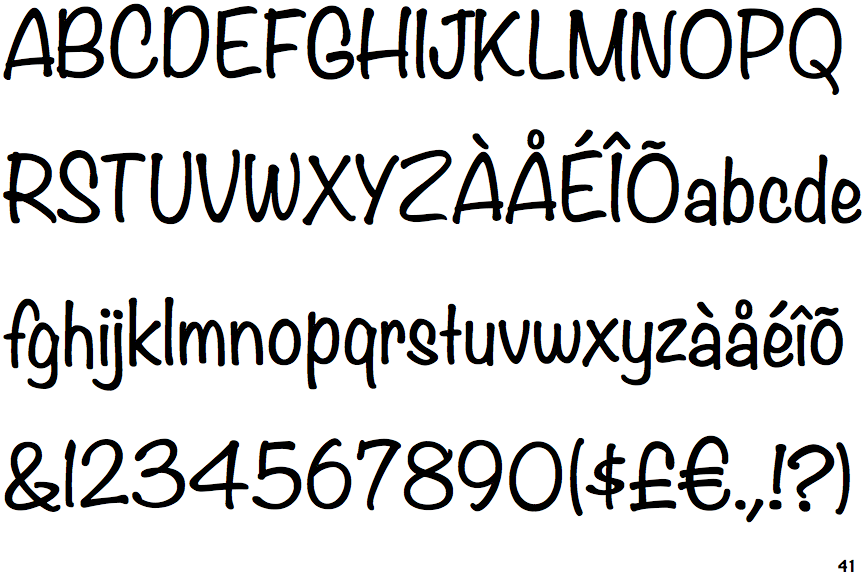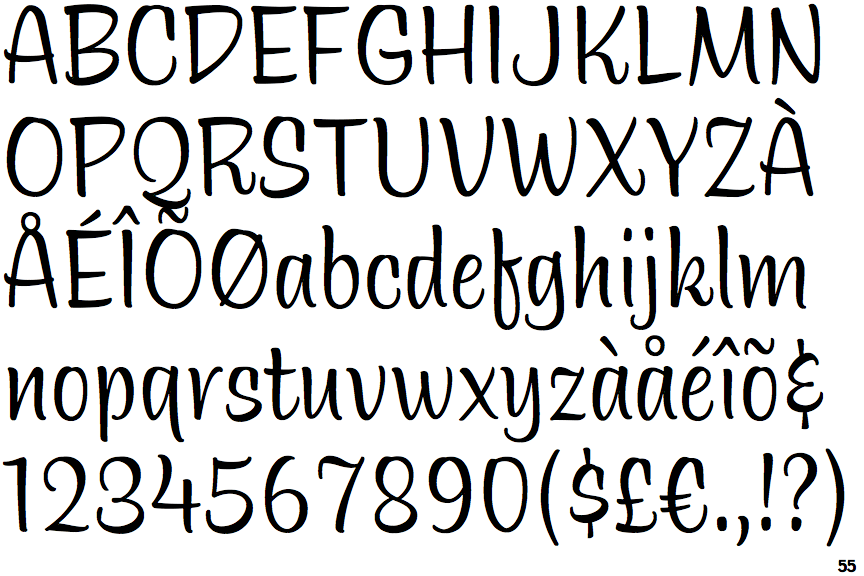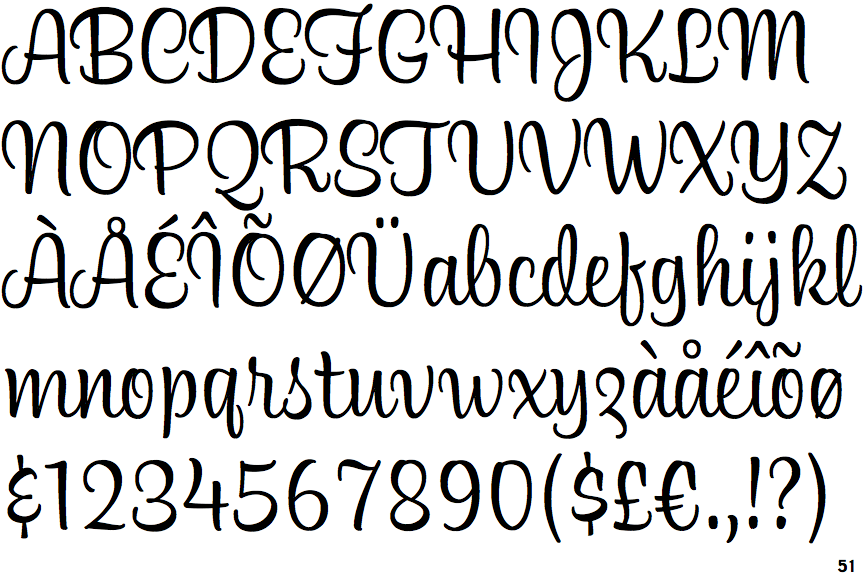
Alfie casual is a little more laid back with letters standing on their own. Download alfie casual small caps font. Similar free fonts for alfie casual small caps. Alfie script is a charming swashy design with a connecting lowercase.
The alfie small caps font swaps out the lowercase of alfie casual for a collection of small cap letters.